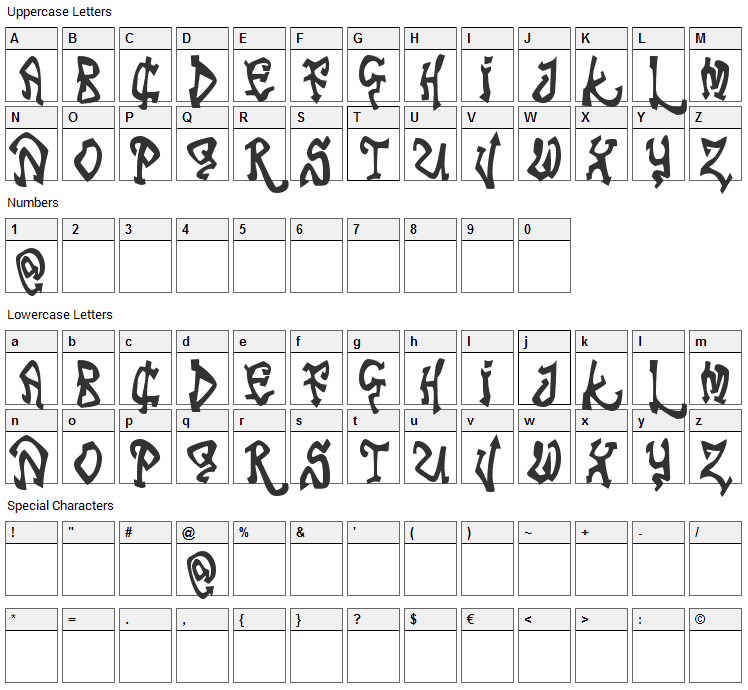
Tribal Funk Font
Font Name:Tribal Funk
Developer:Future Fonts
Category:Script > Graffiti
Tribal Funk is a graffiti font. It has an African feel to it, but with a modern edge. Named by Todd Maroney, in a competition.